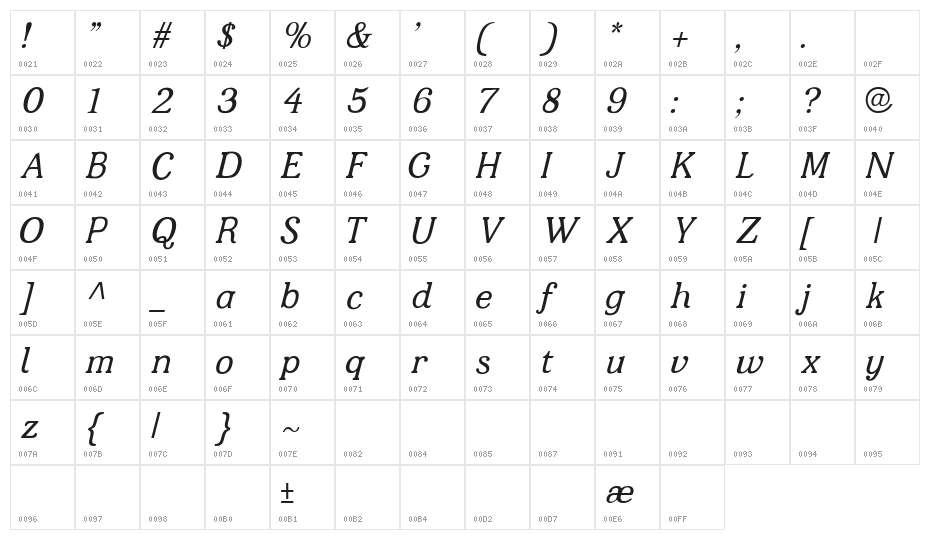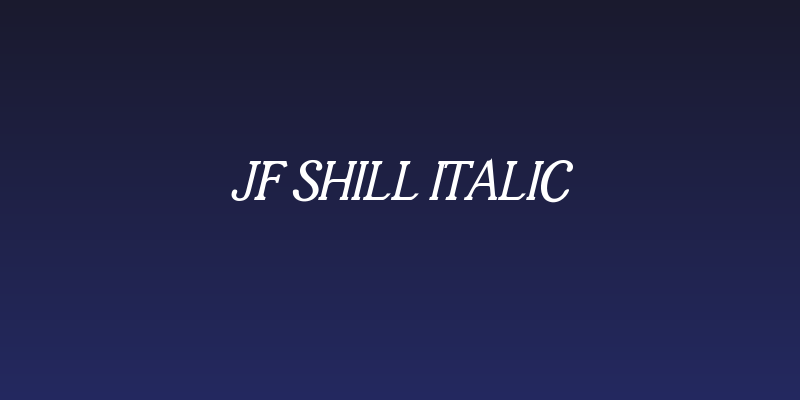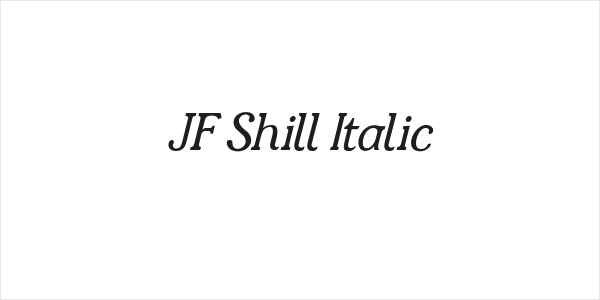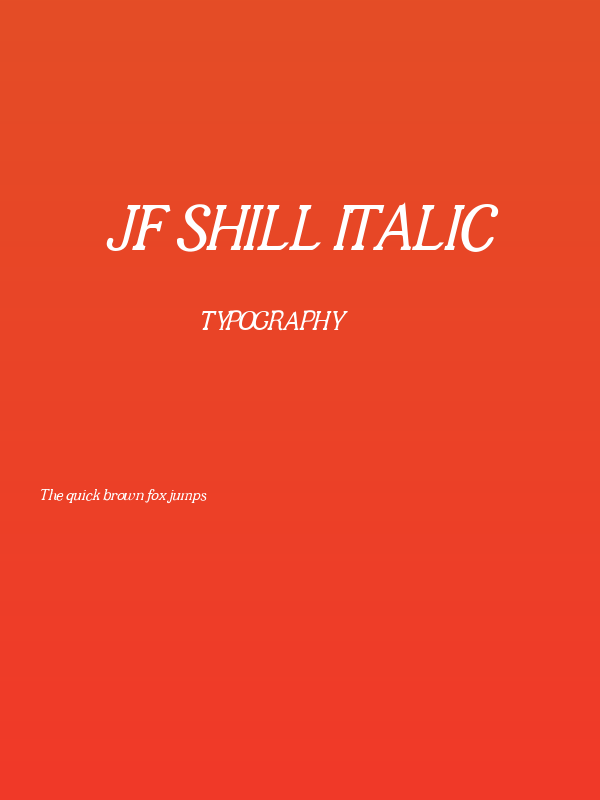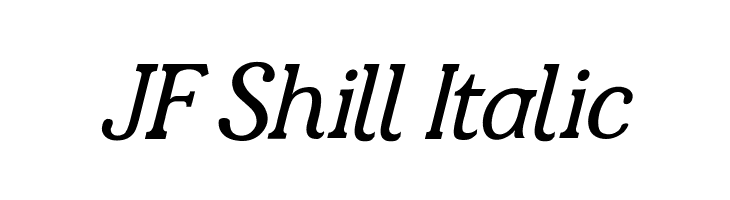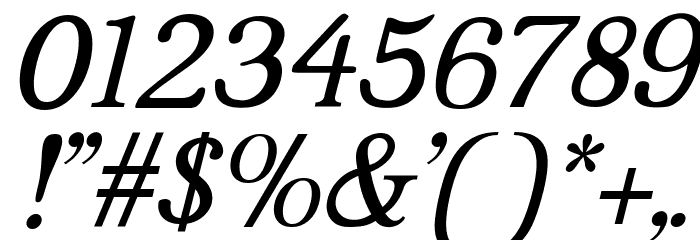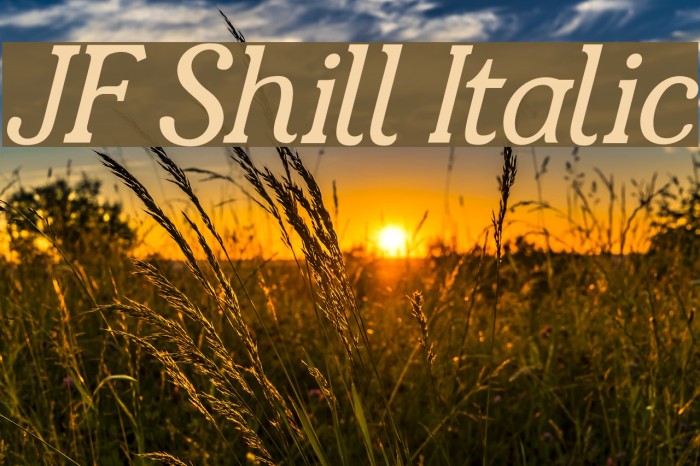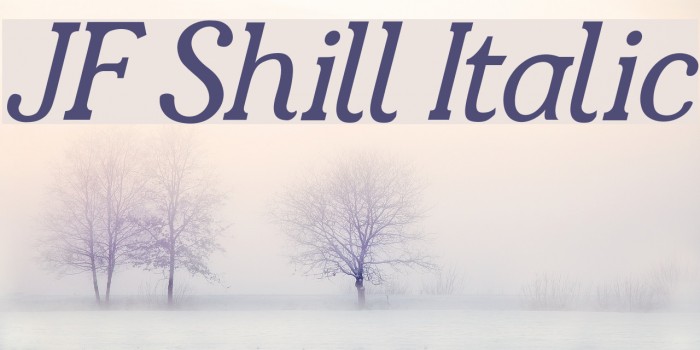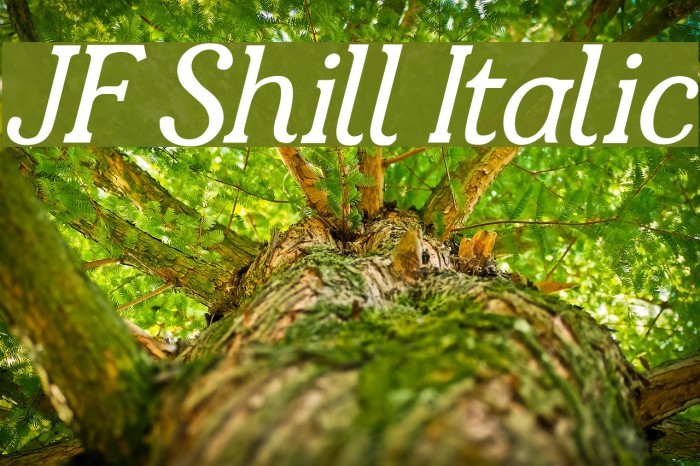
JF Shill Italic Font
JF Shill Italic Description
This font features an elegant and flowing italic style, characterized by its smooth curves and slanted orientation. The uppercase letters are bold and prominent, while the lowercase letters maintain a consistent fluidity, enhancing readability. The numerals are well-proportioned, complementing the overall aesthetic. Special characters are designed with the same attention to detail, ensuring a cohesive look across all glyphs. The font's design exudes a sense of sophistication and grace, making it suitable for a variety of formal and creative applications.
| Overall Style | Classic |
| Use Case | Headlines, Logos, Invitations |
| Proposed Projects | Ideal for wedding invitations, luxury branding, editorial design, and elegant packaging. |